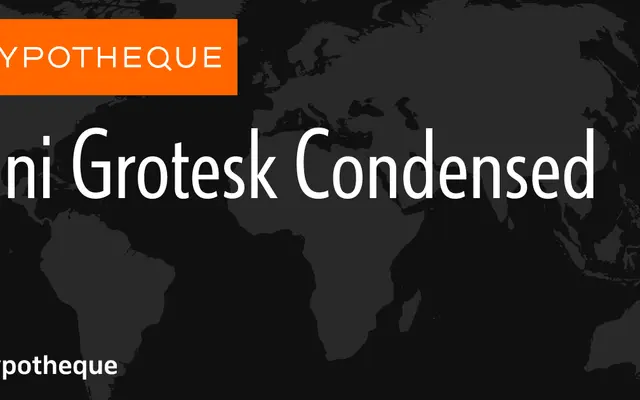
Uni Grotesk Condensed
Uni Grotesk Condensed specimen from Typotheque
A condensed grotesque cut within Typotheque's Uni Grotesk system, spanning four weights with matching italics.
Part of the broader Uni Grotesk family, the condensed variant offers four weights from Light to Bold, each with an italic. The system also includes standard-width and Display subfamilies, allowing cohesive setting across different measures and contexts. City-named styles give each weight and style a distinct label within the purchasing structure.
A condensed grotesque sans-serif, offered as part of the wider Uni Grotesk system alongside standard and display variants, typical of rational European grotesque tradition.